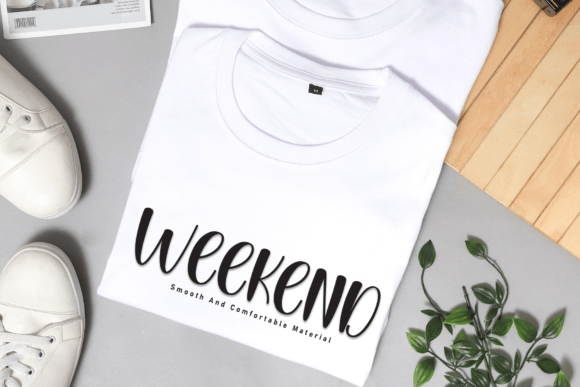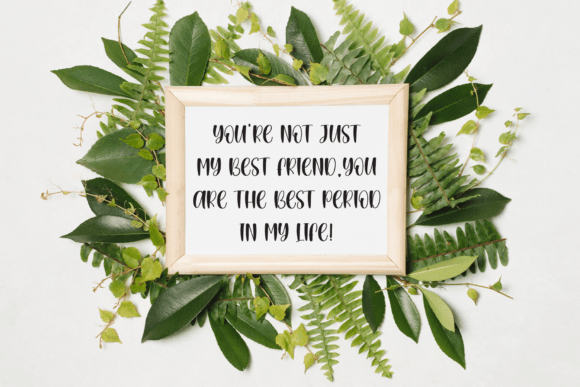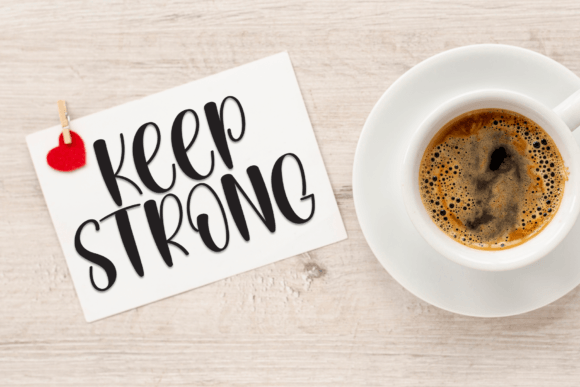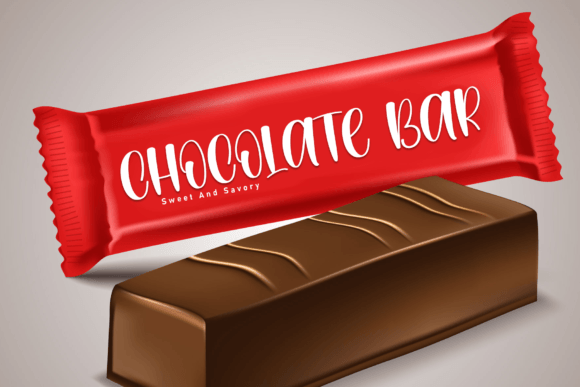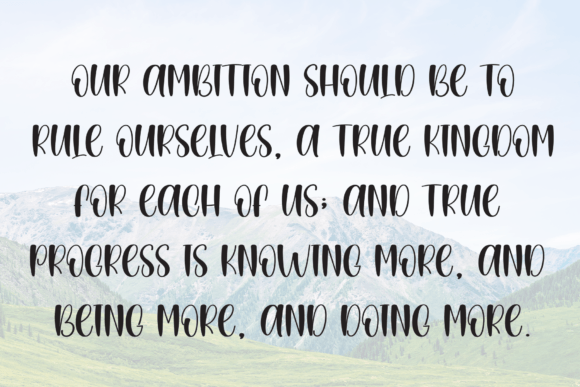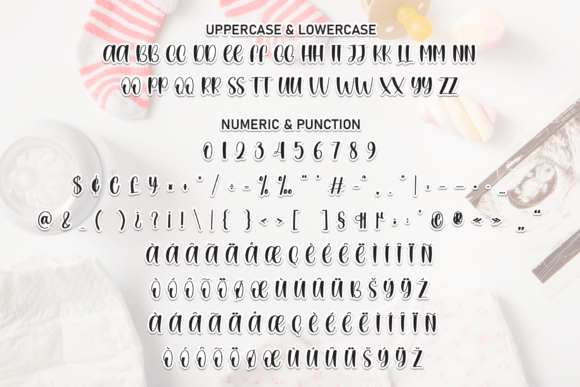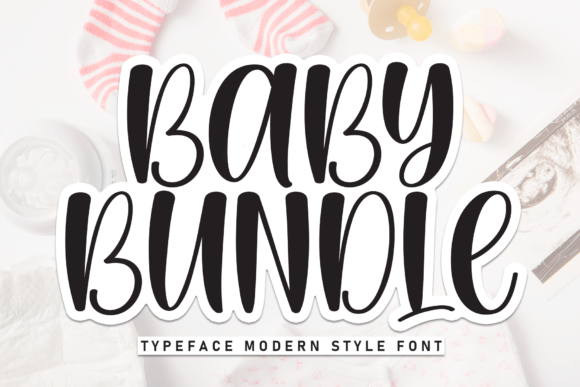
Baby Bundle Font: The Perfect Addition to Your Design Arsenal
In the world of design, fonts play a crucial role in conveying the tone and personality of a project. When it comes to creating cute and playful designs, the right font can make all the difference. This is where Baby Bundle Font comes in – a modern handwritten font that adds a touch of fun and whimsy to any project. In this article, we’ll dive into the world of Baby Bundle Font, exploring its features, uses, and benefits for designers and crafters.
What is Baby Bundle Font?
Baby Bundle Font is a playful and modern handwritten font designed to bring a smile to your face. Its whimsical style is perfect for creating cute designs and cheerful messages, making it an ideal choice for baby announcements, nursery decorations, and playful branding. The font’s playful and carefree vibe makes it a versatile addition to any design project, from digital graphics to print materials.
Key Features of Baby Bundle Font
- Playful and Whimsical Style: Baby Bundle Font boasts a playful and whimsical style that’s perfect for creating fun and engaging designs.
- Modern Handwritten Look: The font’s modern handwritten look gives it a fresh and contemporary feel that’s perfect for a wide range of design projects.
- Easy to Read: Despite its playful style, Baby Bundle Font is easy to read, making it perfect for use in body text and captions.
- Multilingual Support: The font supports multiple languages, making it a great choice for designers working on international projects.
Uses for Baby Bundle Font
Baby Bundle Font is a versatile font that can be used in a wide range of design projects, including:
- Baby Announcements: The font’s playful and whimsical style makes it perfect for creating adorable baby announcements that set the tone for a joyful celebration.
- Nursery Decorations: Baby Bundle Font is a great choice for designing nursery decorations, such as wall art, mobiles, and garlands.
- Playful Branding: The font’s modern and playful style makes it an excellent choice for creating playful branding materials, such as logos, business cards, and social media graphics.
- Digital Graphics: Baby Bundle Font can be used to create a wide range of digital graphics, including social media posts, blog graphics, and email newsletters.
Baby Bundle Font offers a range of benefits for designers and crafters, including:
- Time-Saving: The font’s versatility and ease of use save designers and crafters time and effort, allowing them to focus on other creative aspects of their project.
- Increased Creativity: Baby Bundle Font’s playful and whimsical style inspires creativity and imagination, helping designers and crafters to come up with fresh and innovative ideas.
- Professional-Looking Results: The font’s high-quality design and modern look ensure that designers and crafters achieve professional-looking results that impress their clients or audience.
Tips for Using Baby Bundle Font
To get the most out of Baby Bundle Font, here are some tips to keep in mind:
- Pair with Other Fonts: Experiment with pairing Baby Bundle Font with other fonts to create a unique and visually appealing combination.
- Use in Combination with Images: The font’s playful style works well in combination with images, so don’t be afraid to experiment with using it alongside illustrations or photographs.
- Experiment with Colors: Baby Bundle Font looks great in a range of colors, so try experimenting with different hues and shades to find the perfect combination for your design.
Baby Bundle Font is a playful and modern handwritten font that’s perfect for adding a touch of fun to any design project. Its whimsical style, versatility, and ease of use make it an excellent choice for designers and crafters looking to create cute and engaging designs. Whether you’re working on a baby announcement, nursery decoration, or playful branding materials, Baby Bundle Font is sure to become a valuable addition to your design arsenal.